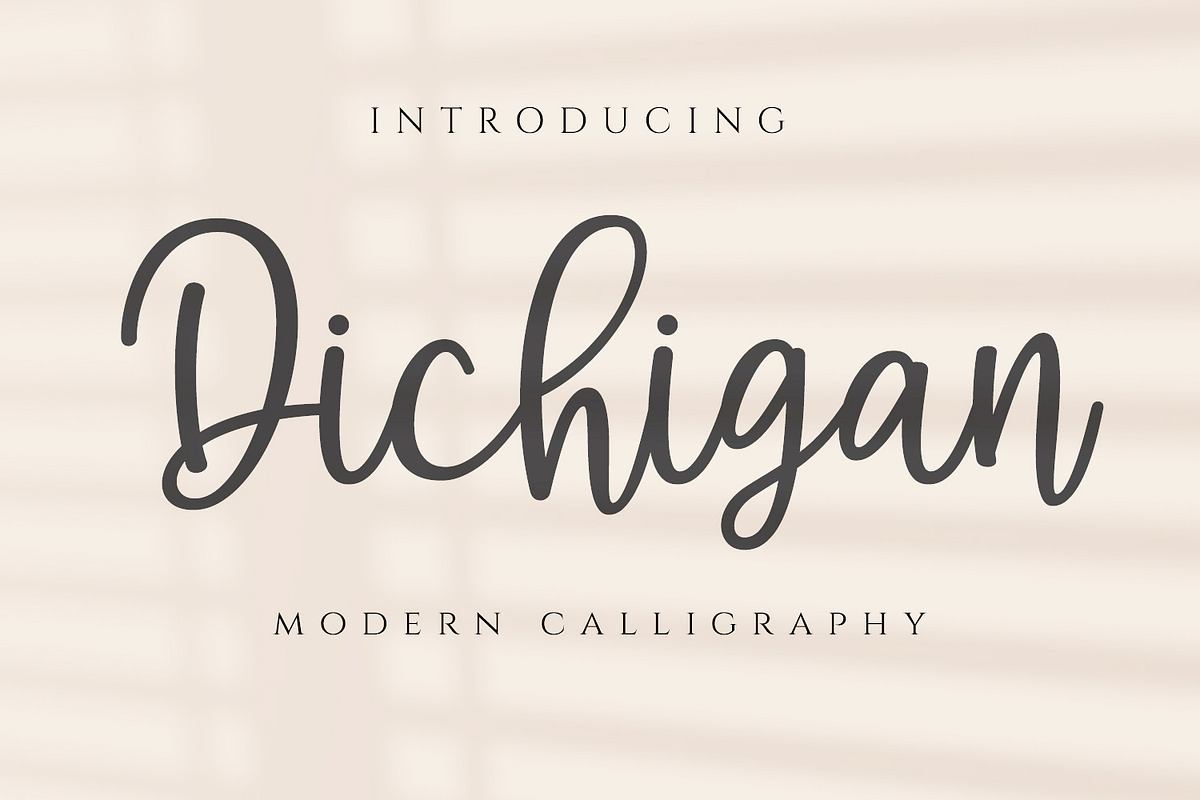
Dichigan - Modern Calligraphy Script Font is perfect for wedding invitations, greeting cards, branding projects, logo design, social media graphics, packaging design, poster design, book covers, magazine layouts, business cards, letterheads, and elegant typography projects.
Dichigan - Modern Calligraphy Script Font is exciting because it seamlessly blends traditional calligraphy elegance with contemporary design sensibilities, creating stunning visual impact that captures attention instantly. This sophisticated script font features flowing letterforms and graceful curves that add personality and warmth to any design project. The carefully crafted characters maintain perfect balance between artistic flair and professional readability.
Dichigan - Modern Calligraphy Script Font includes comprehensive font families: Regular Script, Bold Script, Light Script, Italic variations, Swash alternates, Decorative capitals, Ligature sets, Special symbols, and Ornamental elements, providing endless creative possibilities for designers.
This exceptional calligraphy font transforms ordinary text into extraordinary visual experiences through its handcrafted aesthetic and premium quality construction. Dichigan - Modern Calligraphy Script Font Free Download enables designers to access professional-grade typography that elevates brand identity and creates memorable visual communications. The font's organic flow and natural rhythm make it ideal for projects requiring personal touch and authentic character.
Modern calligraphy enthusiasts and professional designers appreciate Dichigan - Modern Calligraphy Script Font for its versatility across various applications, from intimate wedding stationery to bold advertising campaigns. The typeface's extensive character set includes multilingual support, special punctuation, and decorative flourishes that enhance creative flexibility. Each letterform demonstrates meticulous attention to detail, ensuring consistent quality and visual harmony throughout extended text compositions.
The design philosophy behind Dichigan - Modern Calligraphy Script Font emphasizes authentic handwritten aesthetics while maintaining digital precision and reliability. This careful balance creates a font that feels genuinely crafted yet performs flawlessly across all platforms and media formats. The script's natural variations and subtle imperfections add human warmth that connects emotionally with audiences.